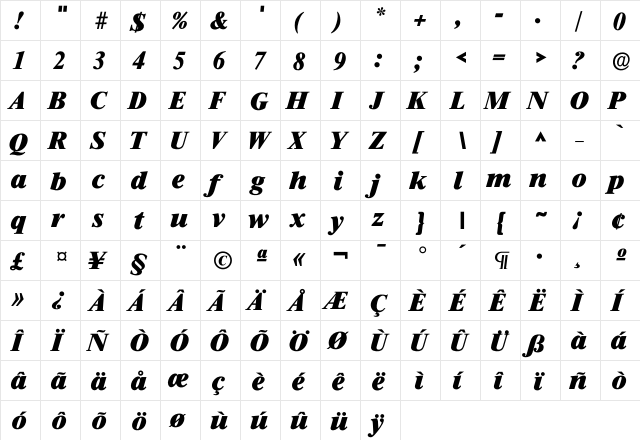
Iriccione ExtraBold Font Preview
Iriccione ExtraBold
Design Context for Iriccione Typeface
Iriccione takes a measured approach to typography — its balanced proportions and neutral character make it a reliable workhorse for both digital and print work. Its bold stroke weight gives it real presence on the page.